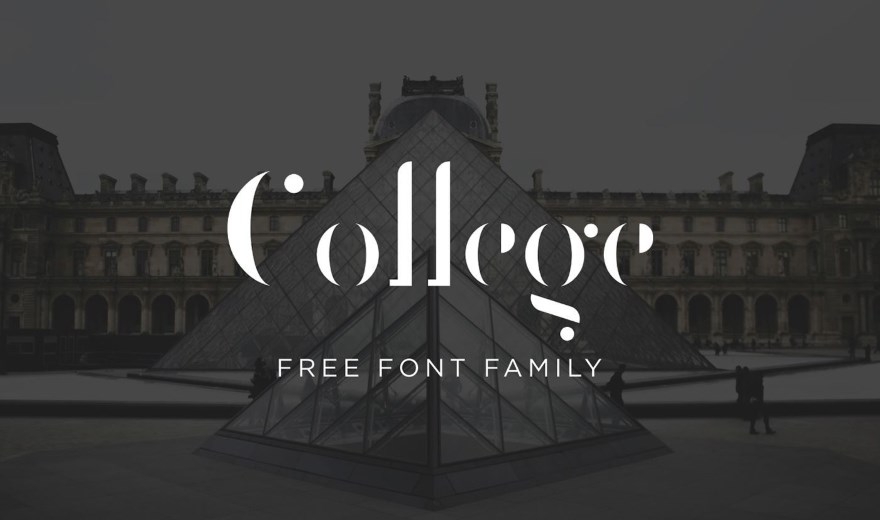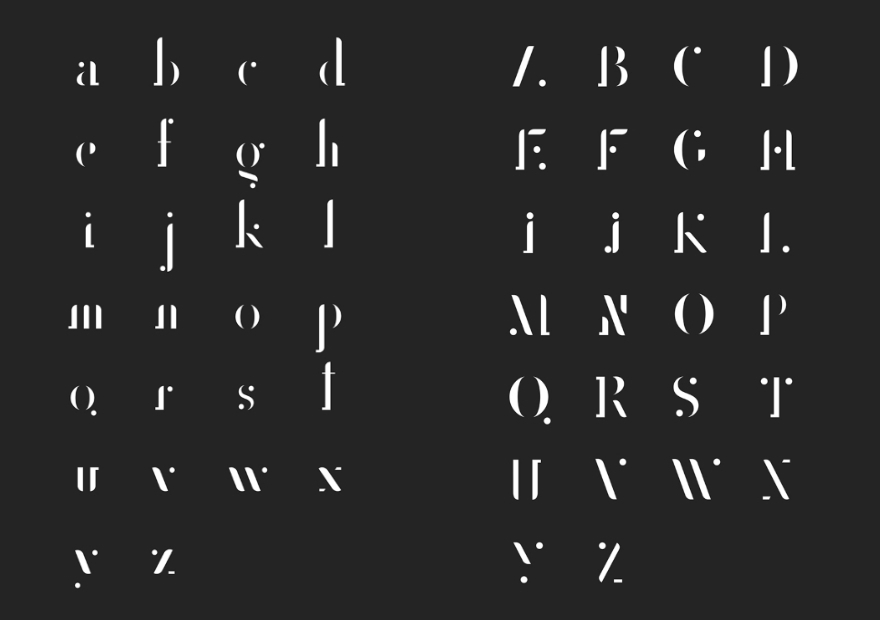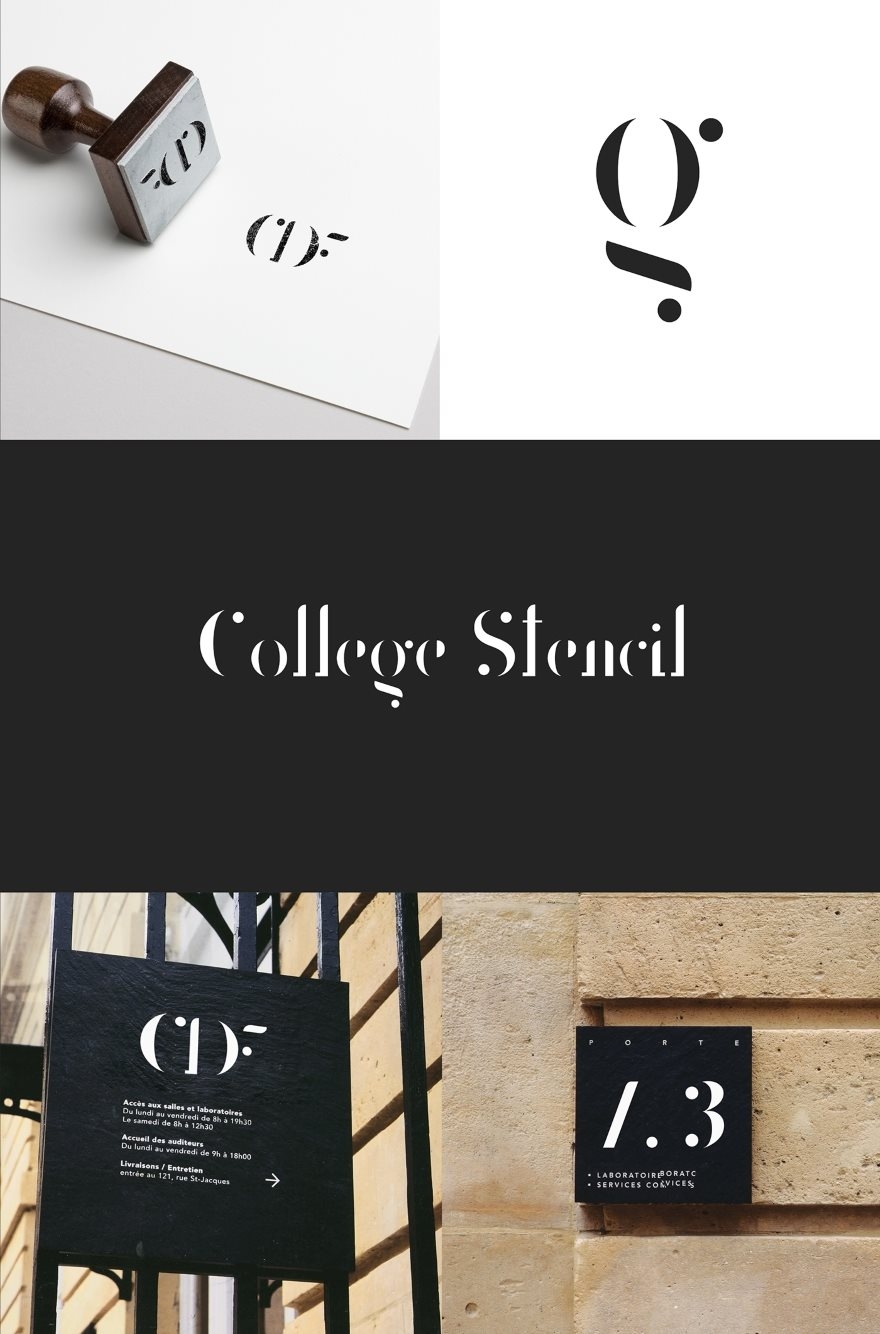
Download College - a free elegant stencil font. The typography of the font is based on the architecture of the College de France. Its letterforms were inspired by the arches & columns of the building. If you want to give a donation to the creator of this font, you can purchase it here for 1€.